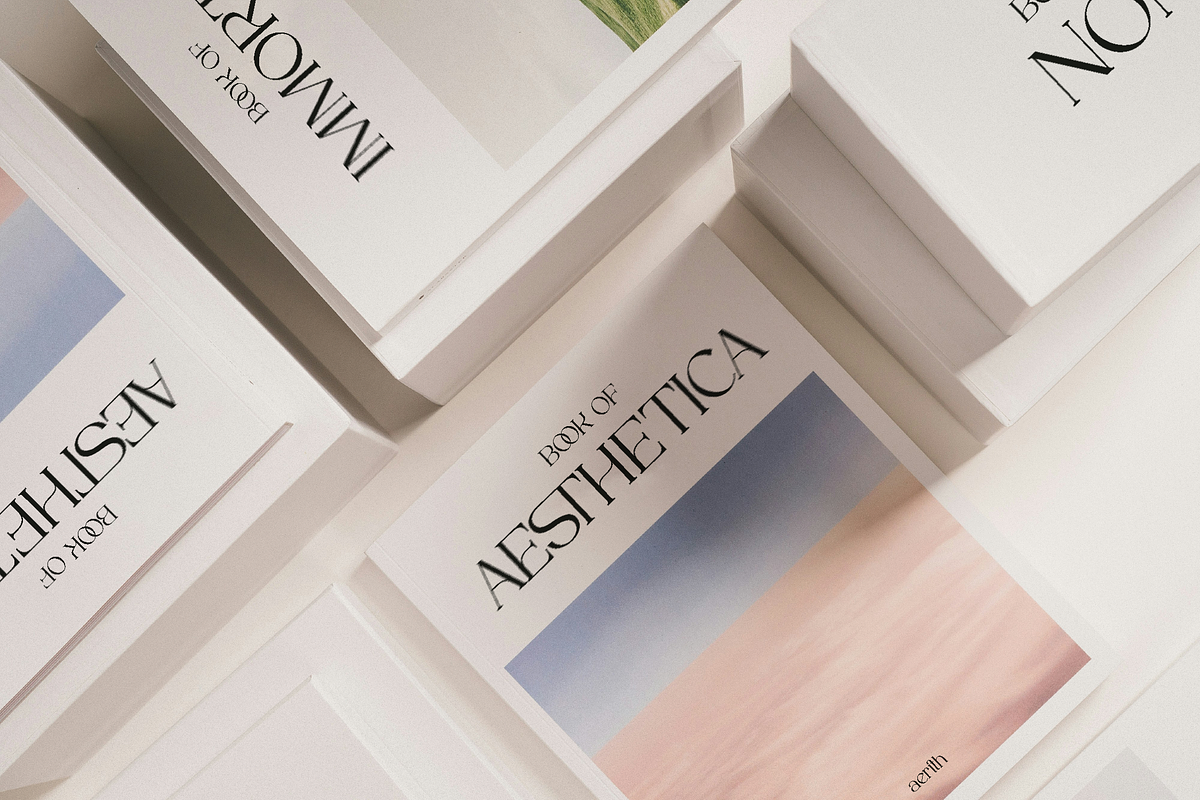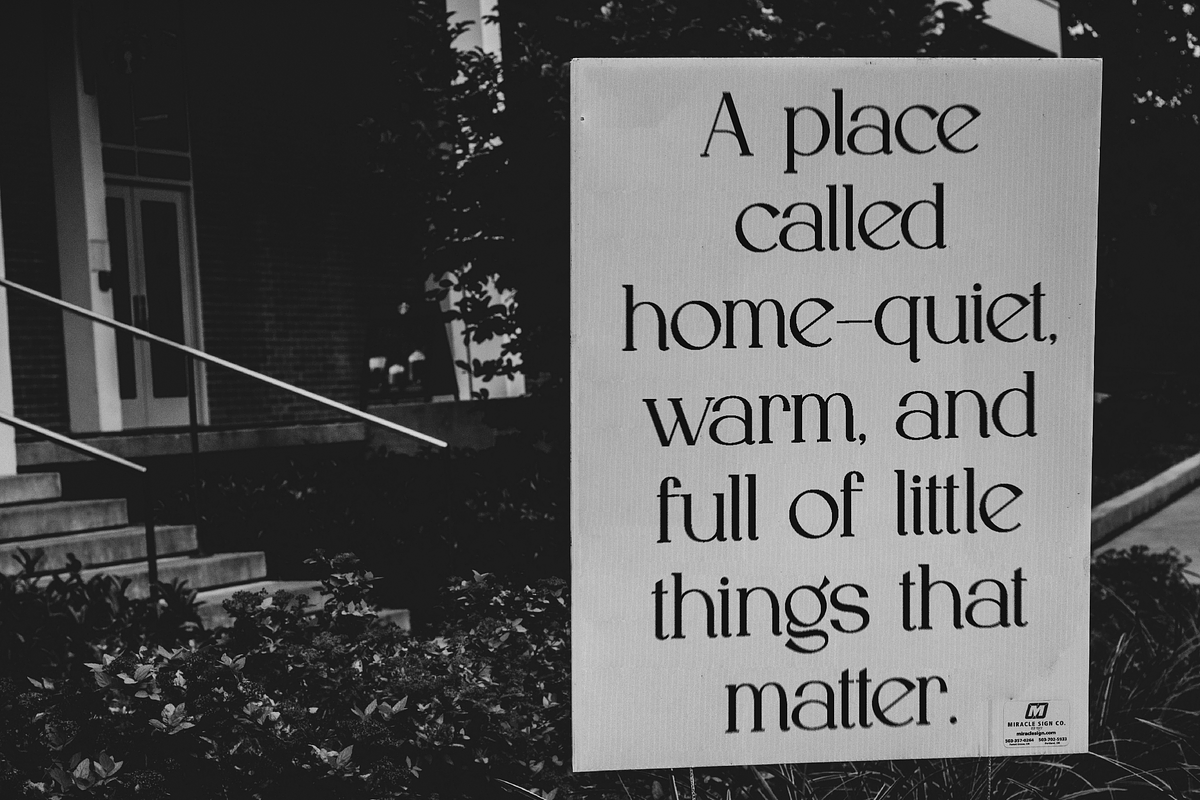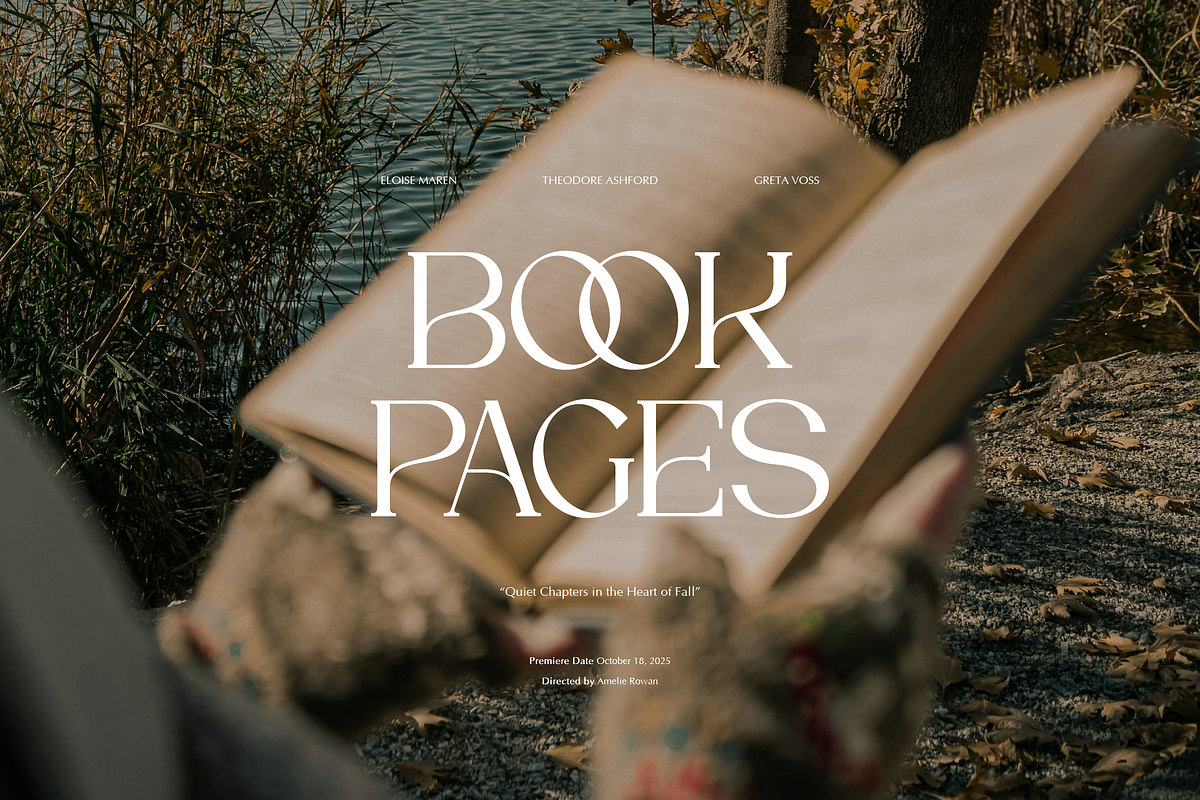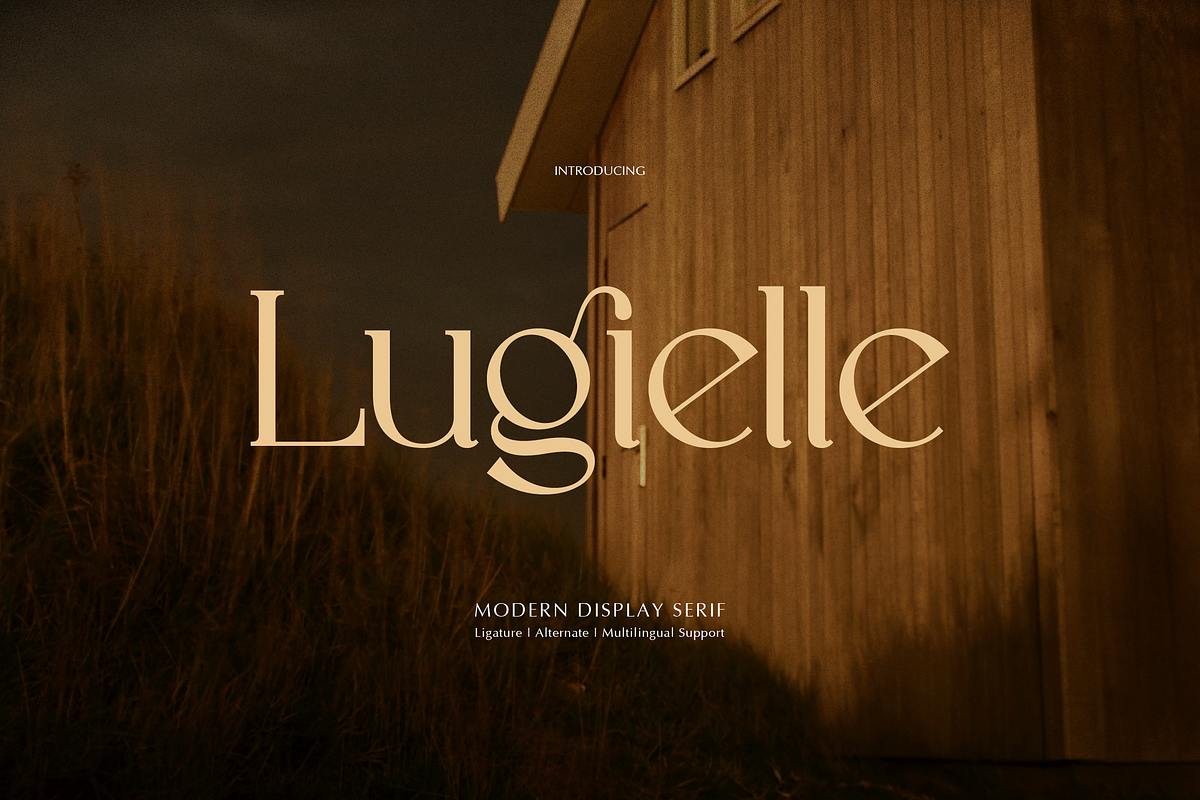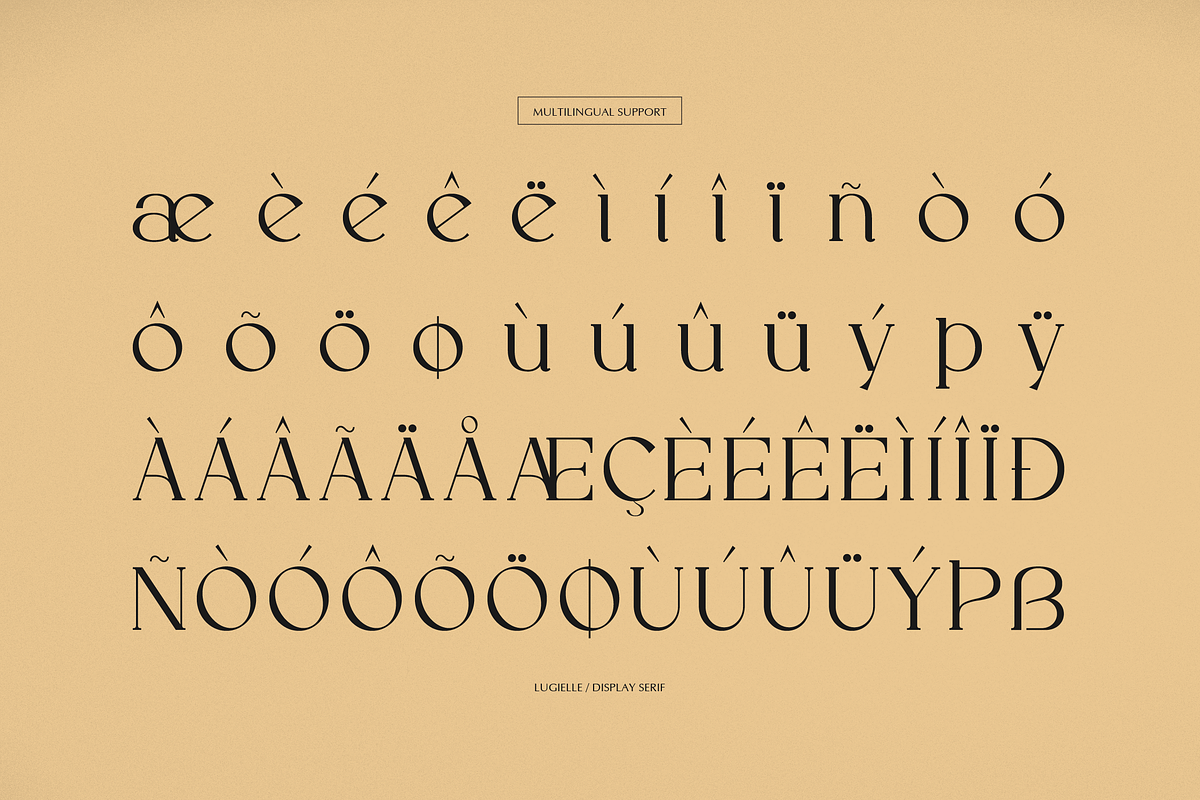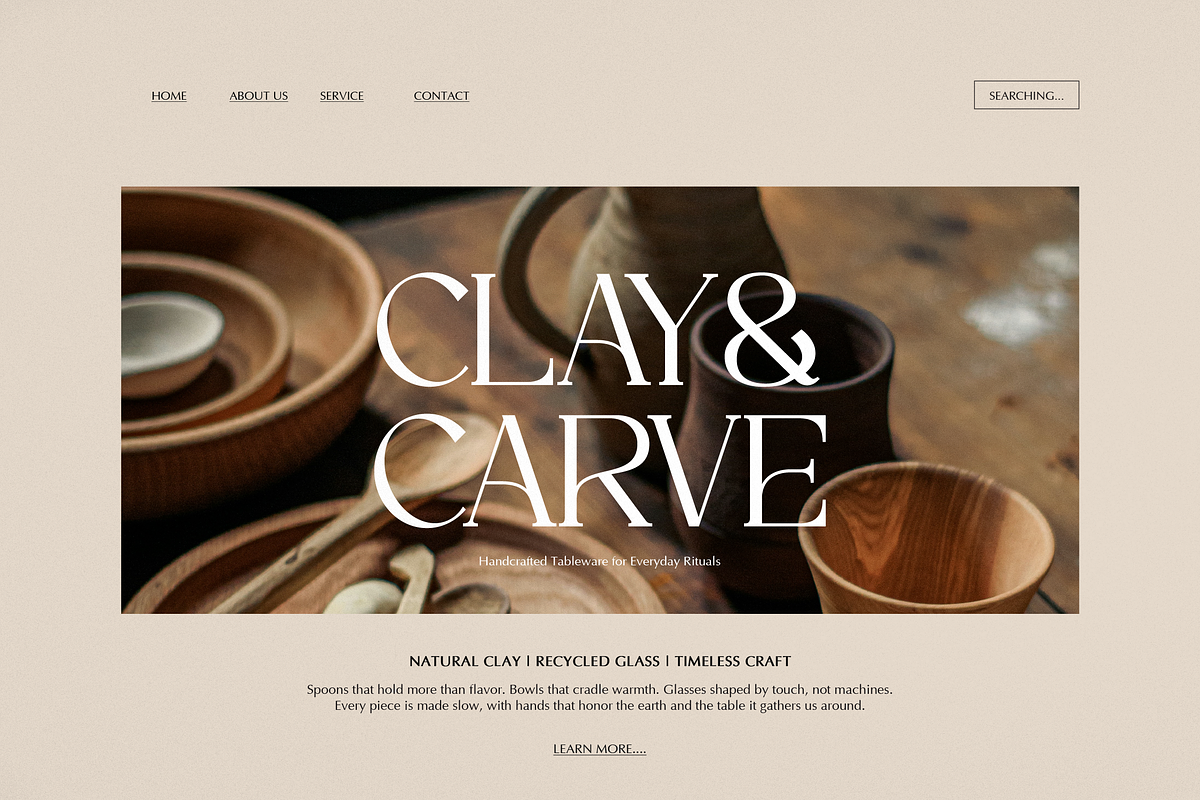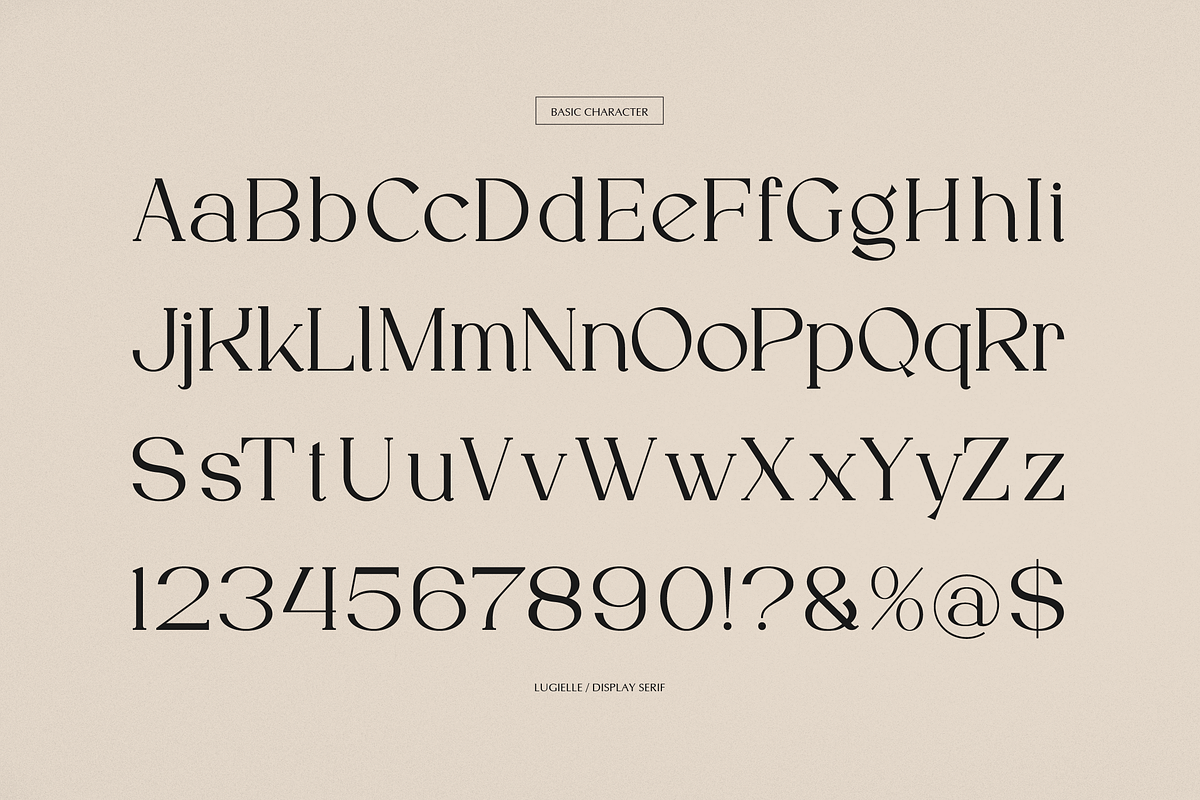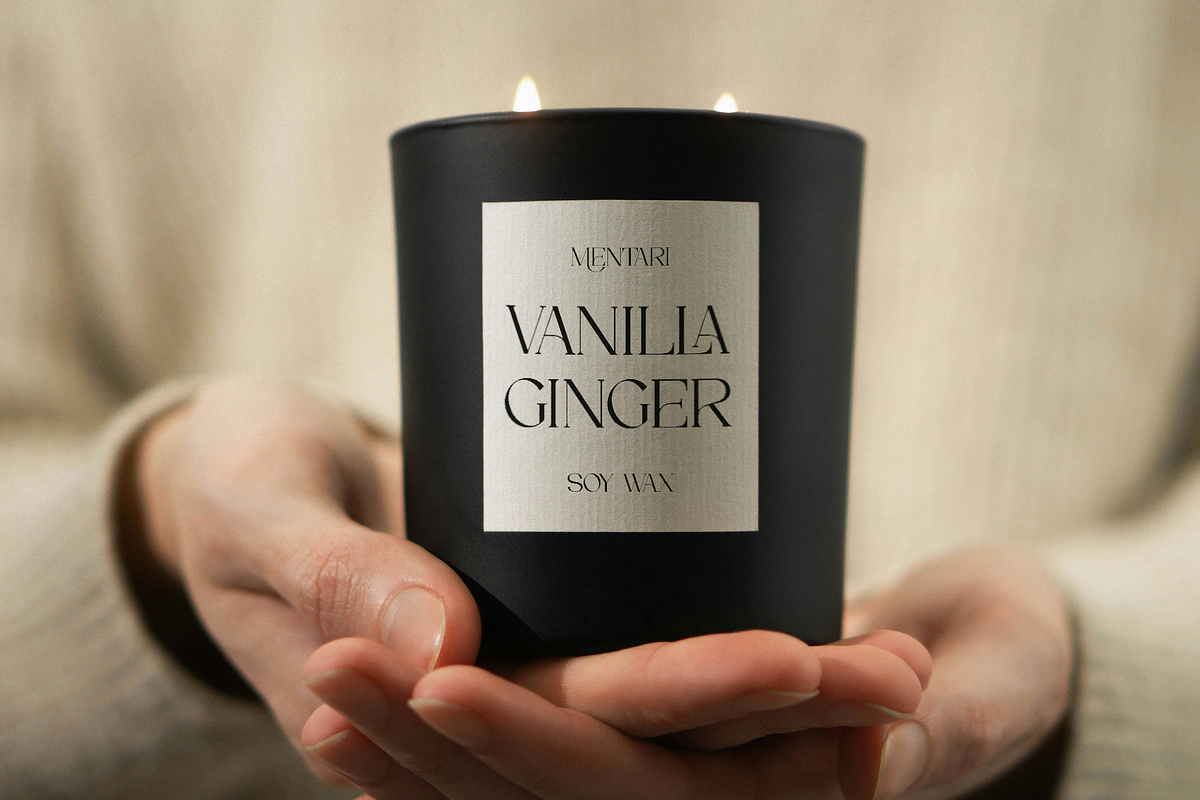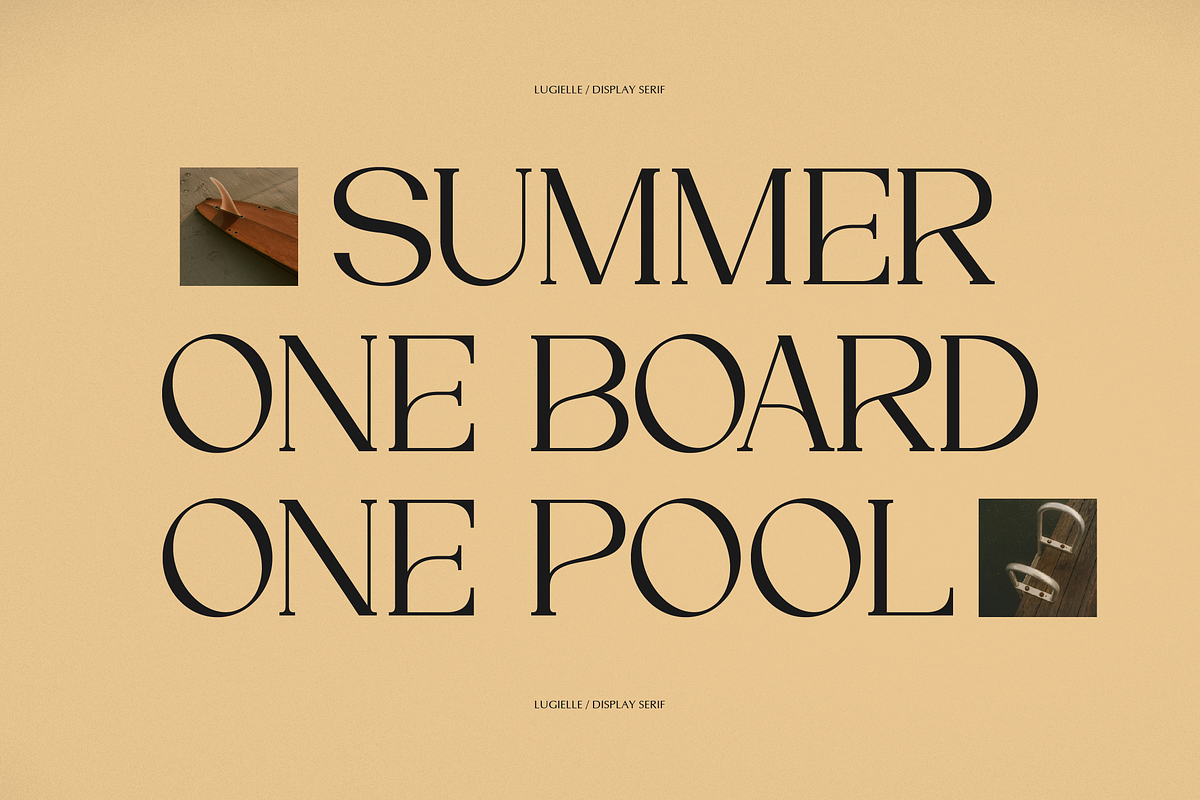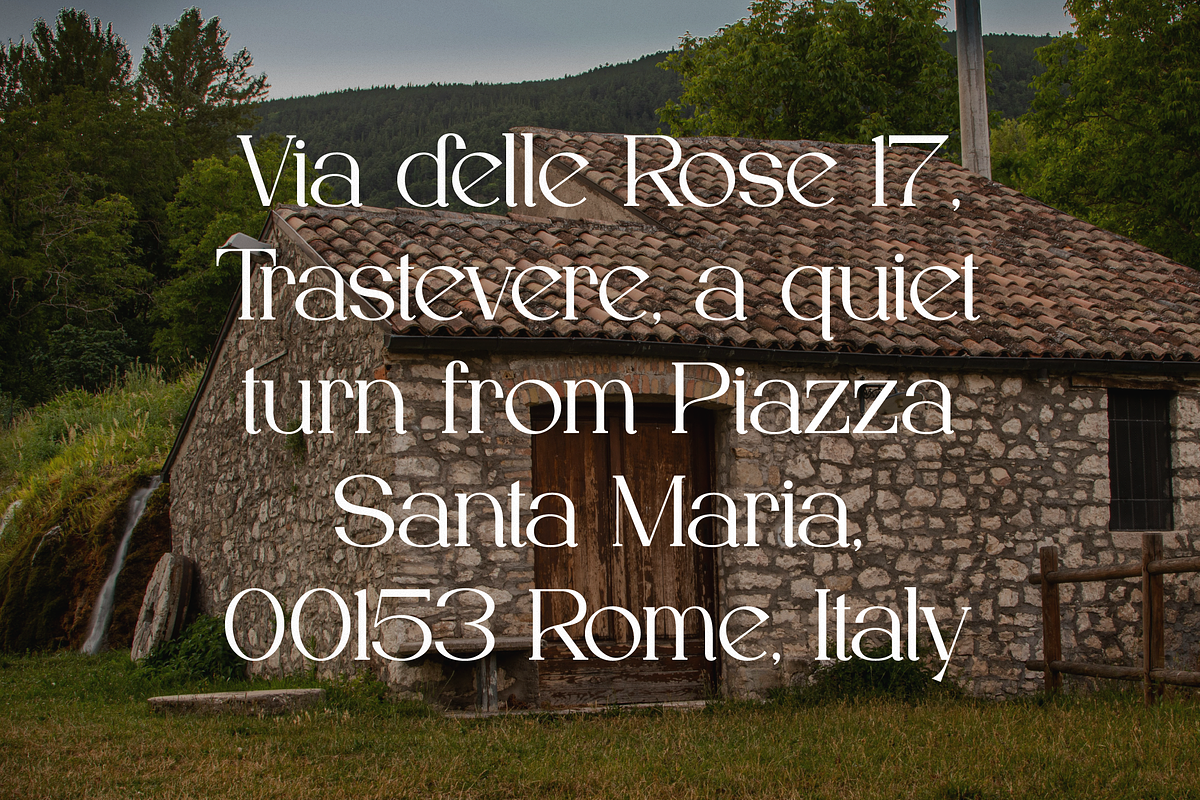
Lugielle | Modern Display Serif
Lugielle | Modern Display Serif, from Gracetypestudio, suitable for any projects such as: logos, branding projects, homeware designs, product packaging, mugs, quotes, posters, shopping bags, t-shirts, book covers, name card, invitation cards, greeting cards, label, photography, watermark, special events, and all your other lovely projects that need a Modern Display Serif taste.